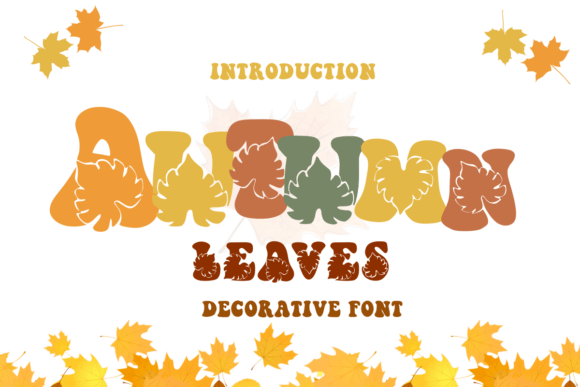
The Perfect Font for Cozy Fall Projects
As I sat at my desk, sipping a warm cup of apple cider, I gazed out the window at the vibrant leaves changing colors outside. The crisp autumn air filled me with inspiration, and I knew exactly what I needed – a font that captured the essence of the season. That’s when I stumbled upon the Autumn Leaves Font, and I knew it was the perfect match for my fall-themed project.
The Autumn Leaves Font is a whimsical and playful decorative font that brings the cozy charm of fall to life. Its unique design features each letter as a leaf motif, making it a perfect choice for seasonal projects like Thanksgiving invitations, autumn-themed posters, school crafts, and harvest festival branding. This font is a valuable addition to any designer’s toolkit, offering a warm, organic vibe and a touch of nature to every design.
Autumn Leaves Font Key Features
- Font Family: Autumn Leaves is a unique, hand-drawn font designed to evoke the feeling of fall leaves.
- Unique Characteristics: Autumn Leaves features a hand-drawn, organic design with intricate details and subtle texture, giving it a distinct and eye-catching appearance.
Autumn Leaves Font Review
Overall, I think the Autumn Leaves Font is a lovely addition to any design project. Here’s what I think works well:
- ✨ Unique design: The font’s hand-painted feel and natural elements like leaves and twigs add a touch of whimsy to any text.
- ✨ Versatility: The font comes in a range of weights and styles, making it suitable for various design applications, from headings to body text.
- ✨ High-quality rendering: The font renders well at various sizes and resolutions, ensuring it looks great in both print and digital formats.
- ⚠️ Limited character set: The font may not include all the characters you need for certain languages or special characters.
- ⚠️ May not be suitable for small text: The font’s unique design can make small text difficult to read, especially for people with visual impairments.
Overall, I think the Autumn Leaves Font is a great choice for designers looking to add a natural, whimsical touch to their projects. Just be aware of its limitations and use it judiciously.
Practical Application Guide: Autumn Leaves Font
Tips for Getting the Most Out of the Autumn Leaves Font
Use the Autumn Leaves font in combination with warm, autumnal colors to create a cohesive design. Experiment with different font sizes and styles to add visual interest to your design. Use the font in combination with other design elements, such as shapes and icons, to create a unique and visually appealing design.
The Autumn Leaves font is commonly used in designs that evoke a sense of warmth and coziness, such as:
- Autumn-themed designs, such as fall invitations and holiday cards
- Home decor designs, such as wall art and throw pillows
- Wedding designs, such as invitations and programs